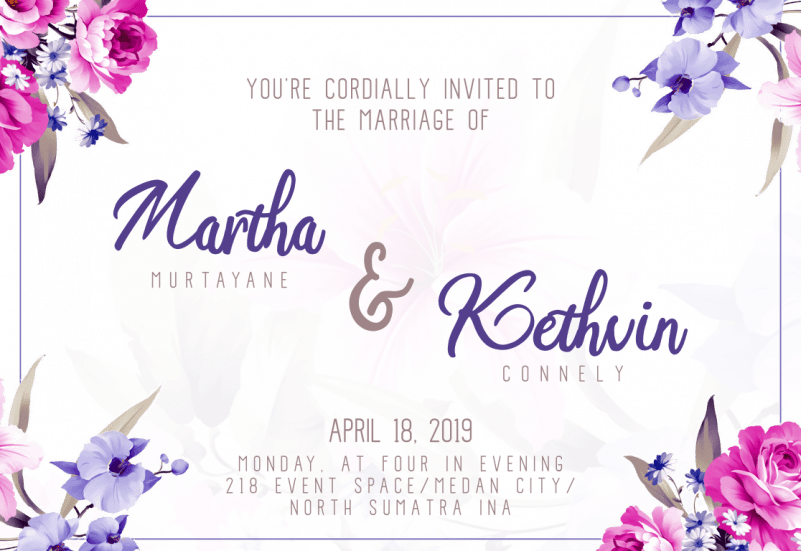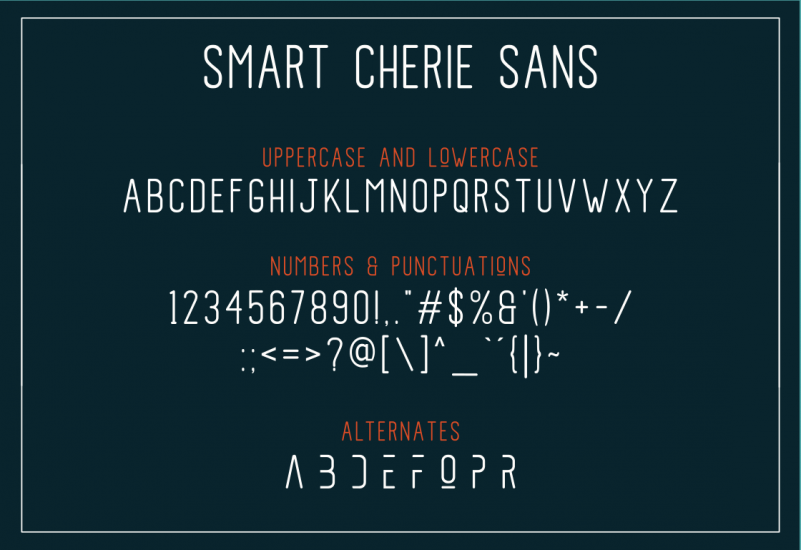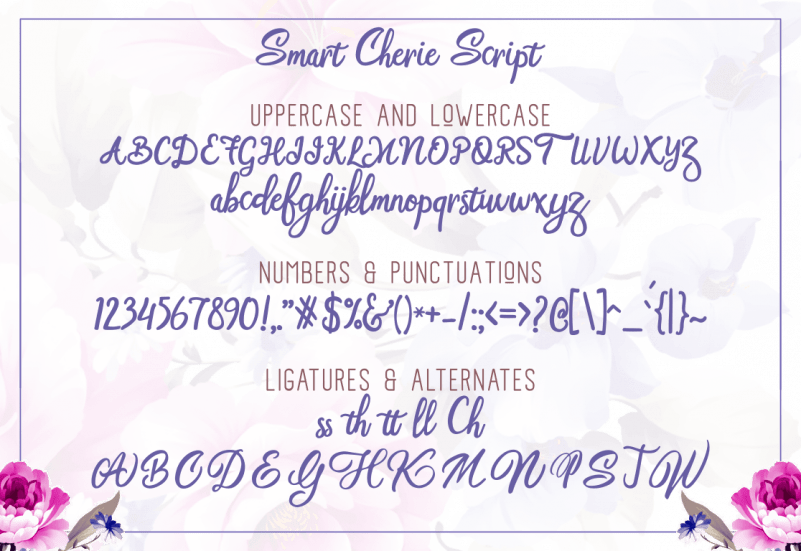
Smart Cherie Font Duo
Sweet, delicious and incredibly charming: Fall in love with the Smart Cherie Duo, a striking mix of two unique fonts! It’s perfect for logos & branding, photography, invitation, watermark, advertisements,product designs, stationery, wedding designs,label ,product packaging, special events or anything that need special taste.